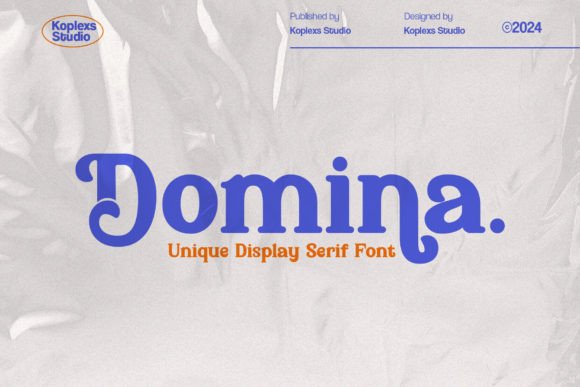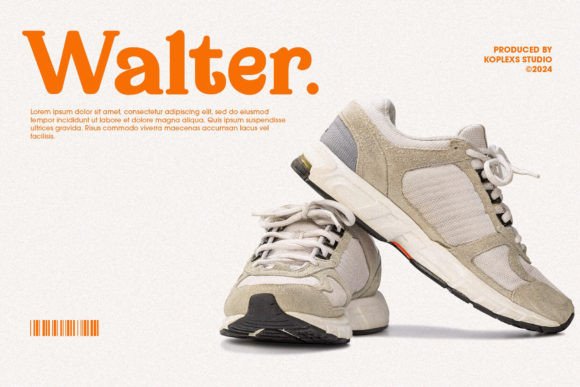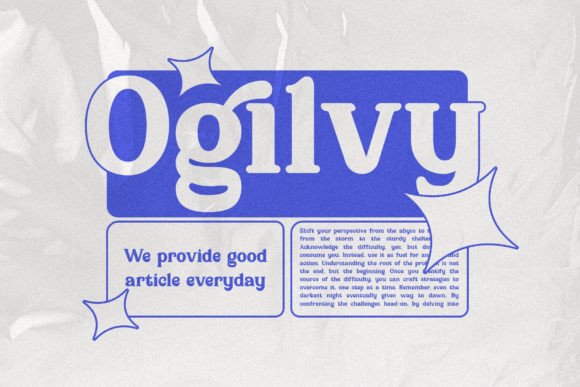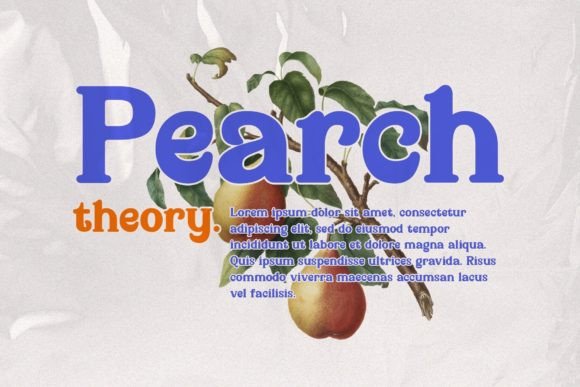
Domina Font: Modern Serif Typography for Elegant Logo Design
About the Domina Font
Presenting Domina Font, a unique and stylish typeface that will make your work stand out. Domina is a serif font, perfect for an elegant & luxury logo, classy editorial design, women’s magazine, fashion brand, cosmetic brand, fashion promotion, modern advertising design, invitation card, art quote, home decoration, book/cover titles, special events, and much more.
Domina’s elegant serif forms excel in headlines, short text blocks, and branding applications where sophistication is key. It lends itself well to luxury packaging, high-end brochures, and invitations, adding a touch of timeless class. However, its refined details aren’t ideal for extensive body text or user interfaces; readability suffers at smaller sizes.
Pairing Domina effectively requires considering its inherent elegance. A clean sans-serif like Helvetica Neue or a geometric sans-serif such as Futura would create a strong, modern contrast. For a warmer feel, a classic serif like Garamond or a slightly more playful script font could complement its refined personality.
Domina projects a feeling of sophisticated boldness. It’s a font best suited for brands that value heritage, quality, and understated luxury. Avoid using it for projects requiring a youthful, informal, or highly accessible aesthetic.
Domina Font Usage Examples
Domina Font Example